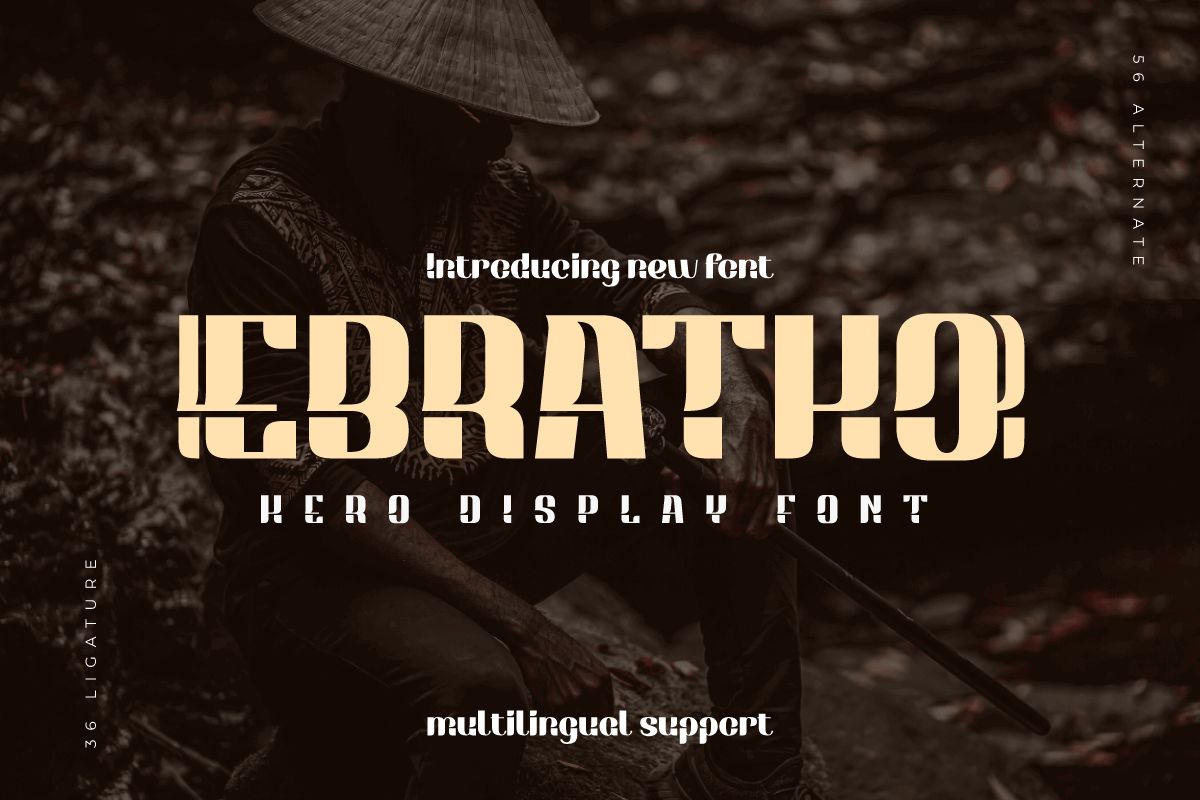
Ebratho Display Hero Font
Ebratho Display Hero Font is perfect for superhero comic book titles, epic movie posters, heroic video game logos, champion sports branding, motivational campaign graphics, powerful advertising headlines, legendary event materials, and triumphant victory celebrations.
This font is exciting because it radiates heroic power with commanding letterforms that capture the unstoppable strength and legendary courage of champions who rise above ordinary limitations to achieve extraordinary greatness. Ebratho Display Hero Font brings epic grandeur to designs through its bold structure and heroic styling that feels like typography forged in the fires of legend and blessed with the power to inspire heroes. The font's legendary character makes it perfect for brands that celebrate heroism and want to communicate strength, courage, and the kind of inspirational power that transforms ordinary people into extraordinary champions.
The Ebratho Display Hero Font family includes Regular, Bold, Light, Epic, Legendary, and Champion variants, each designed to capture different levels of heroic intensity while maintaining the font's characteristic powerful appeal and legendary authenticity. The character set features heroic details that enhance the font's connection to champion achievements and epic victories.
Whether you're creating branding for inspirational enterprises, designing materials for championship events, or developing content that needs to project heroic power, Ebratho Display Hero Font Free Download delivers the legendary typography that calls audiences to embrace their inner hero and achieve greatness beyond imagination. This remarkable typeface transforms text into heroic declarations that resonate with the same unstoppable courage and legendary strength found in the world's greatest champions and heroes, ensuring your message communicates the inspirational power and heroic determination that empowers people to overcome any obstacle and achieve the extraordinary victories that define true champions and legendary heroes.